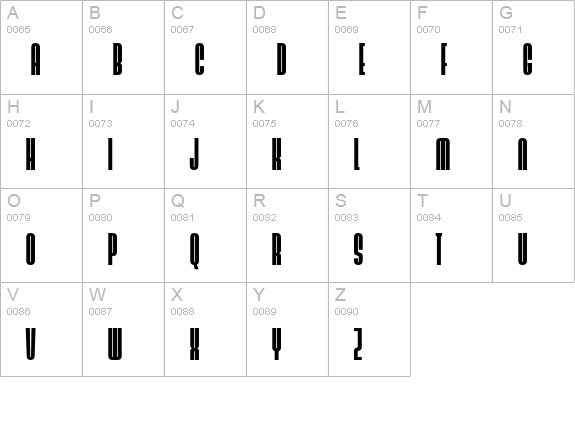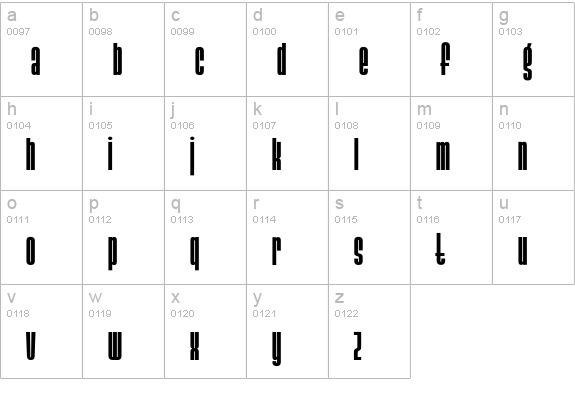
Ainsdale-Bold Font Details
Ainsdale-Bold is a strong, high-contrast variant in the Ainsdale typeface family \xE2\x80\x94 well suited to headlines, attention-grabbing titles, and strong calls-to-action.